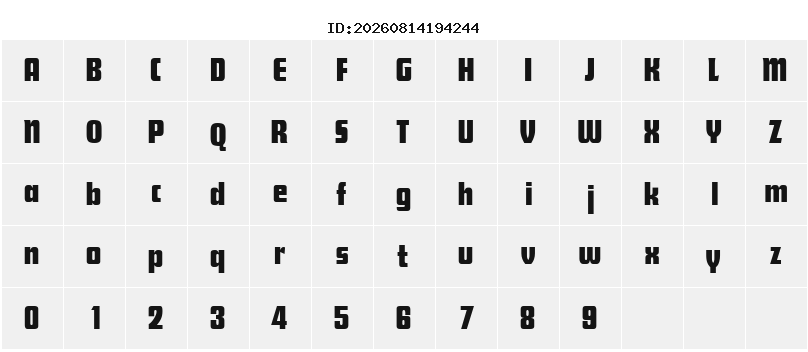
SteileFunction.ttf is a modern, elegant sans-serif font designed for ultimate readability and visual harmony. Perfect for branding, headlines, web design, and print materials.